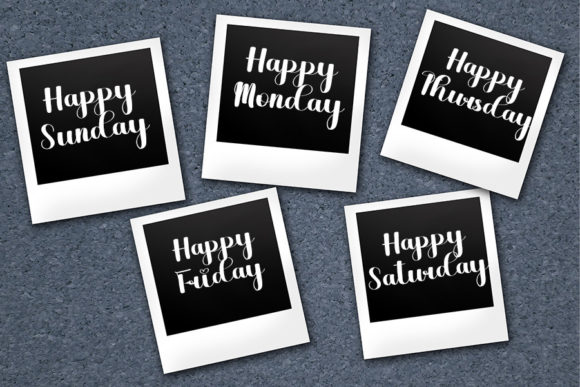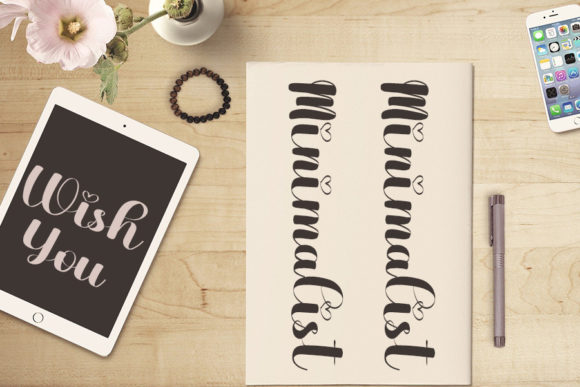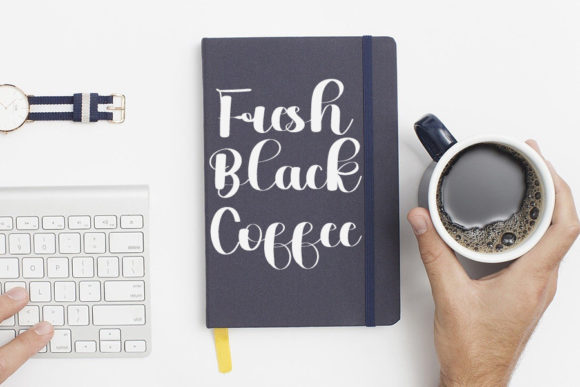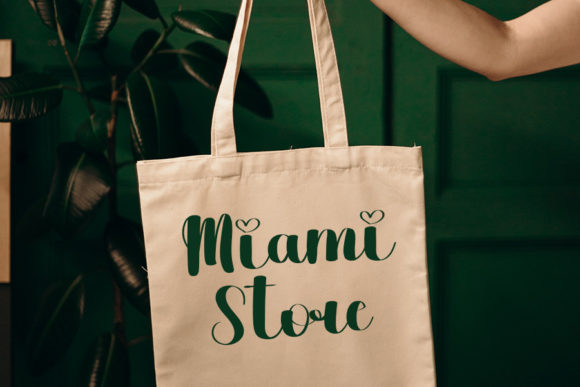
About Romantic Font
Romantic is a stunning script font that exudes beauty, refinement, and a touch of modern elegance. With its classy and sophisticated look, this font is perfect for a wide range of design projects, including logos, branding, invitations, stationery, wedding designs, social media posts, and more.
The font’s graceful and flowing characters are meticulously crafted, capturing the essence of romance and style. Each letter has a delicate balance of curves and swashes, creating a harmonious and visually pleasing aesthetic. The modern touch adds a contemporary twist to the classic script style, making it versatile for both traditional and modern design approaches.
In logo design and branding, Romantic makes a strong impact. Its elegant and refined appearance instantly elevates a brand’s image, conveying a sense of sophistication and professionalism. Whether you’re creating a logo for a high-end boutique, a luxurious spa, or a premium product, this font adds a touch of class and allure to the brand identity.
For invitations and stationery, Romantic sets the tone for special occasions. Whether it’s a wedding, anniversary, or a formal event, this font adds a touch of elegance and refinement to the design. The flowing characters and beautiful swashes create a sense of luxury and create a memorable impression on the recipients.
When it comes to wedding designs, Romantic is a perfect choice. It complements the romantic and sentimental atmosphere of weddings, adding a touch of elegance to wedding invitations, save-the-date cards, programs, and other wedding stationery. The font’s classy and refined look captures the essence of love and celebration, creating a beautiful visual representation of the couple’s special day.
Social media posts and graphics become captivating with Romantic. Its modern and elegant style makes your content stand out, whether you’re sharing inspiring quotes, promoting products, or creating engaging visual content. The font adds a touch of sophistication to your posts, creating a visually appealing and cohesive brand presence.
In summary, Romantic is a beautiful and refined script font that adds class, elegance, and a modern touch to any design project. From logos and branding to invitations, stationery, wedding designs, and social media graphics, this font shines in various applications. Embrace the beauty of Romantic and let it elevate your designs with its graceful and sophisticated aesthetic.